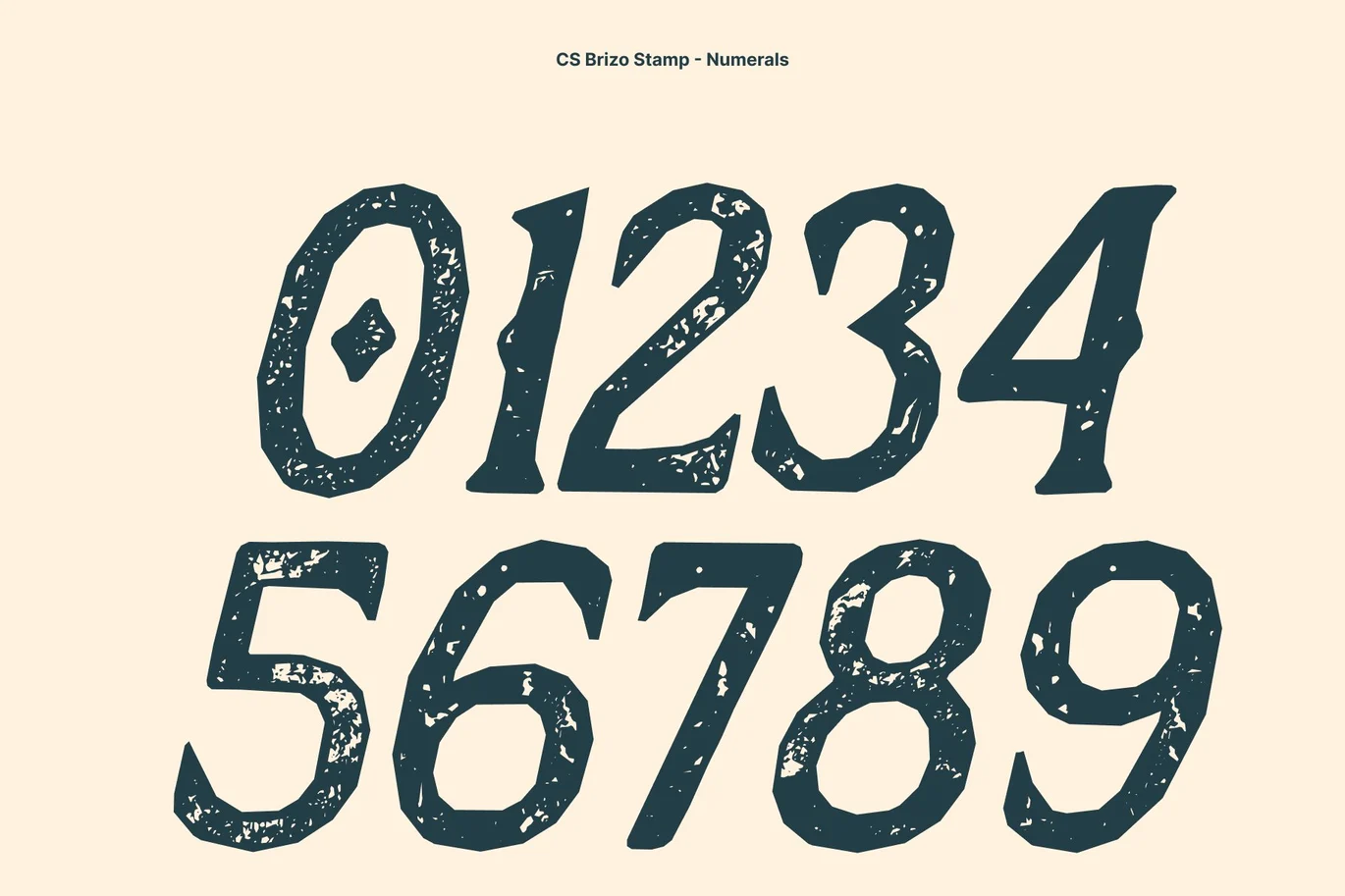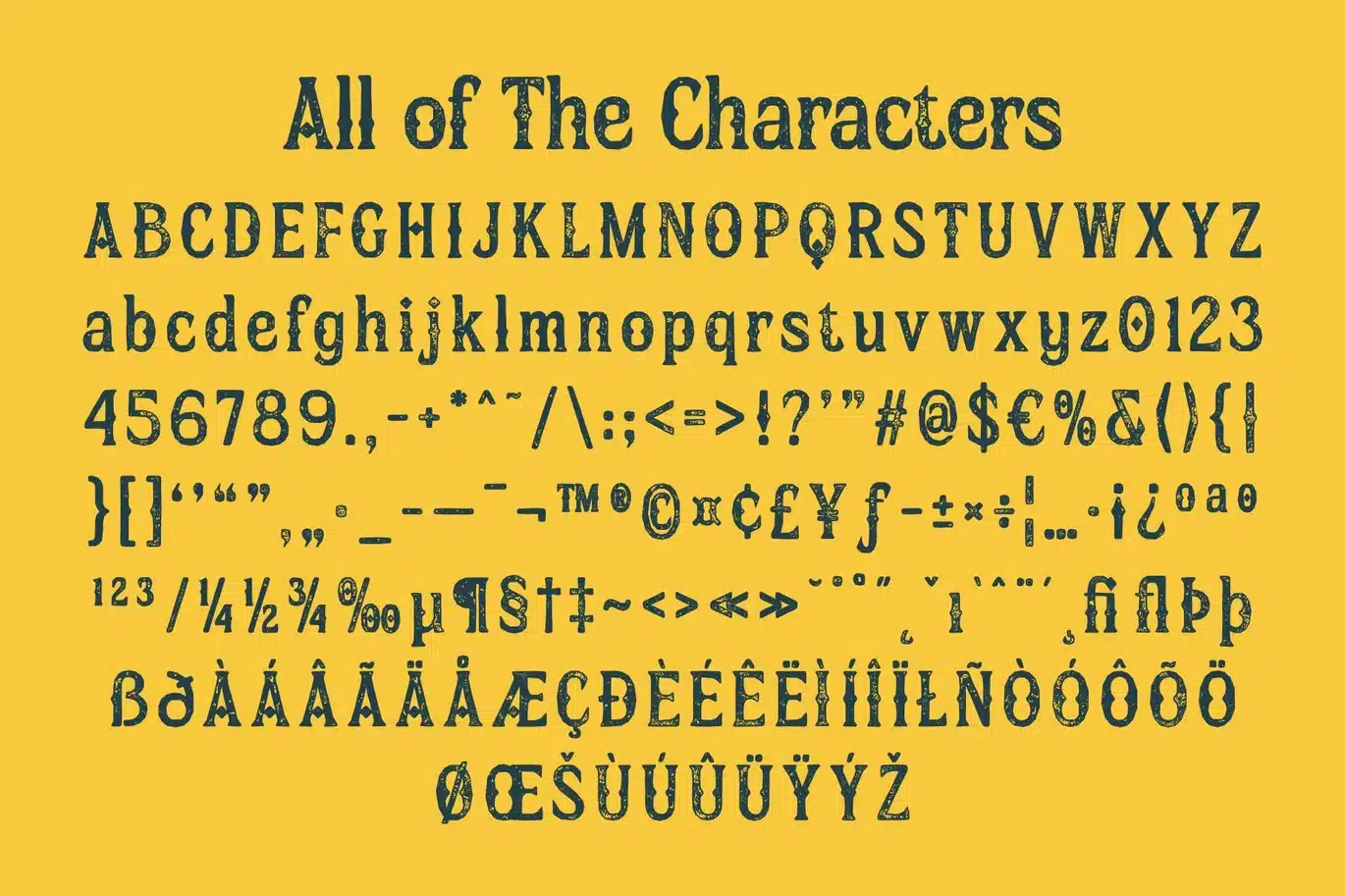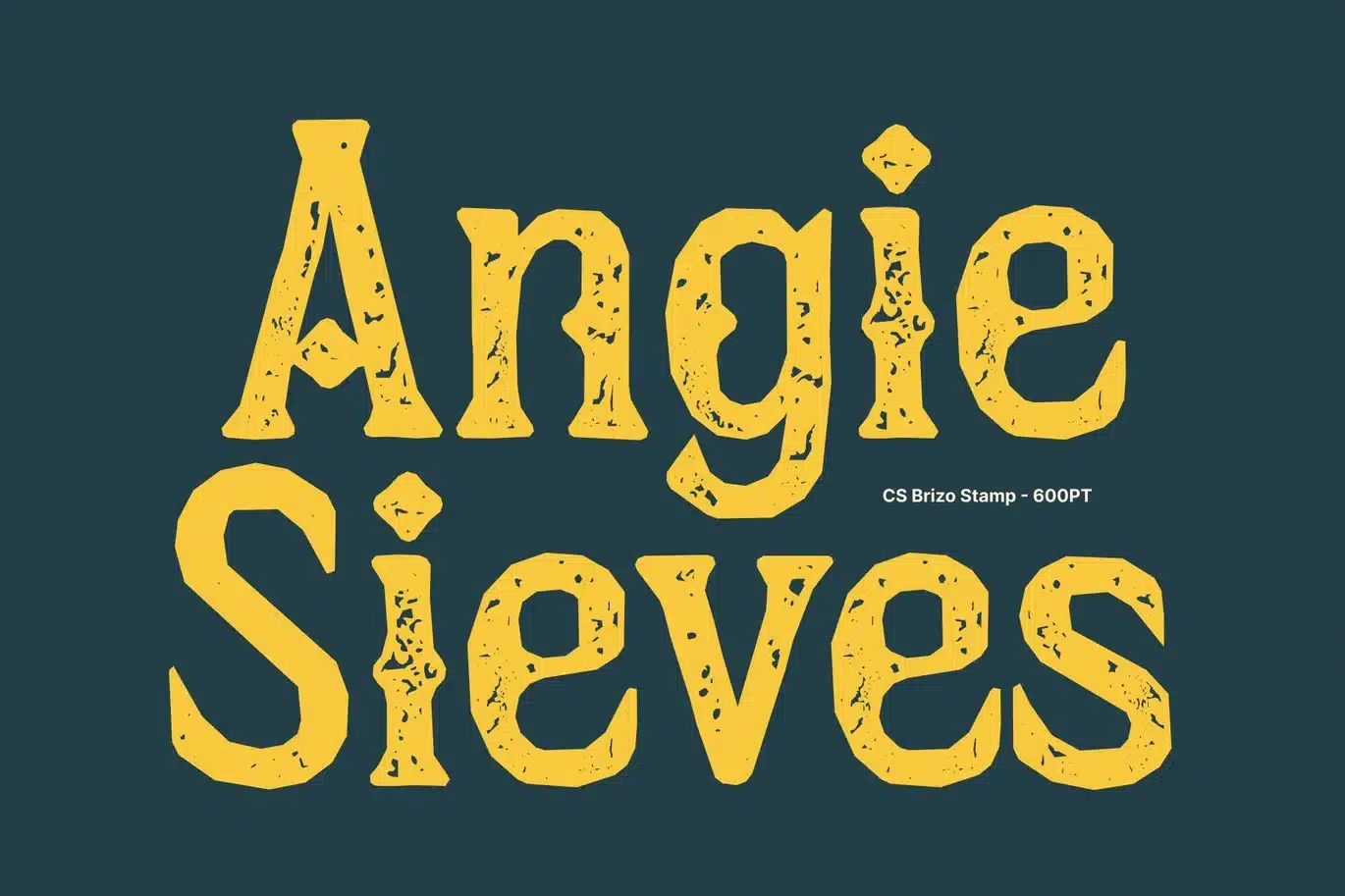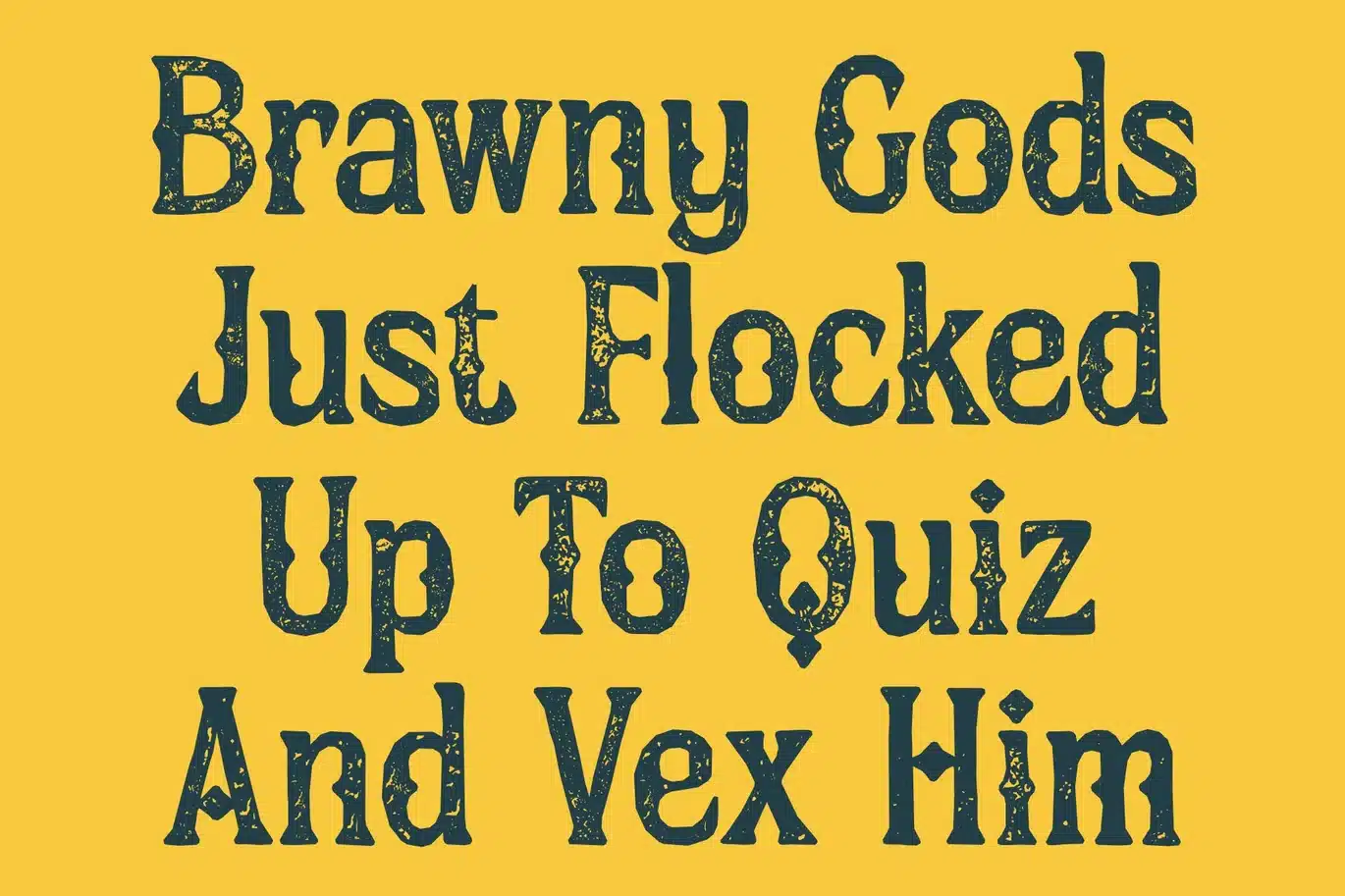
Brizo Stamp Font
CS Brizo Stamp – Spiky Serif Font with Dramatic Flair
Elegant Sophistication Meets Edgy Design
This is a striking serif font that blends timeless elegance with bold, spiky character. Each letter incorporates pointed serifs and angular protrusions, giving the typeface a dramatic, edgy personality while retaining classic sophistication. The addition of a stamp effect adds texture and an artisanal, slightly distressed finish, enhancing its artistic, high-end feel.
Bold, Artistic Letterforms
The spiky serifs and sharp angles create a dynamic rhythm across the text, making each word feel deliberate and impactful. The subtle stamp texture softens the edges slightly, providing a handcrafted, vintage-inspired aesthetic that complements the bold, modern design.
Perfect for Premium and Attention-Grabbing Projects
This font excels in applications that demand both elegance and visual impact. Ideal for fashion branding, luxury logos, editorial headlines, and high-end promotional materials, it adds a daring, sophisticated edge that sets designs apart.
Distinctive Balance of Edge and Refinement
By combining sharp, rebellious elements with traditional serif grace, delivers a unique typographic voice. It’s perfect for projects that want to push creative boundaries while maintaining a polished, stylish presence, transforming text into a statement of both confidence and artistry.